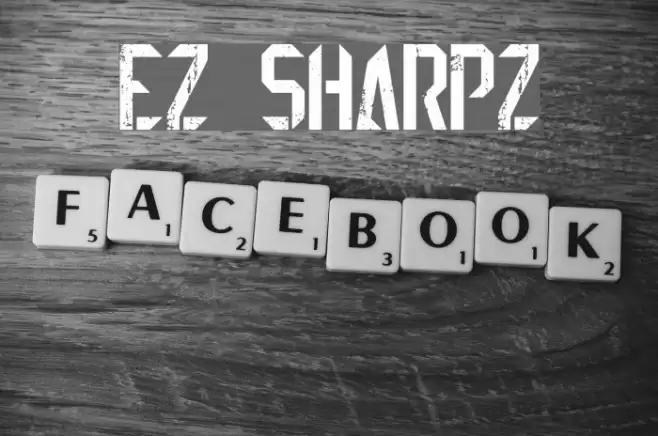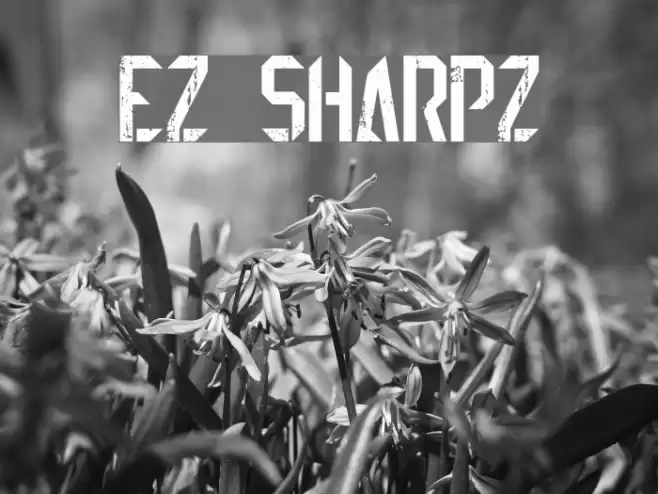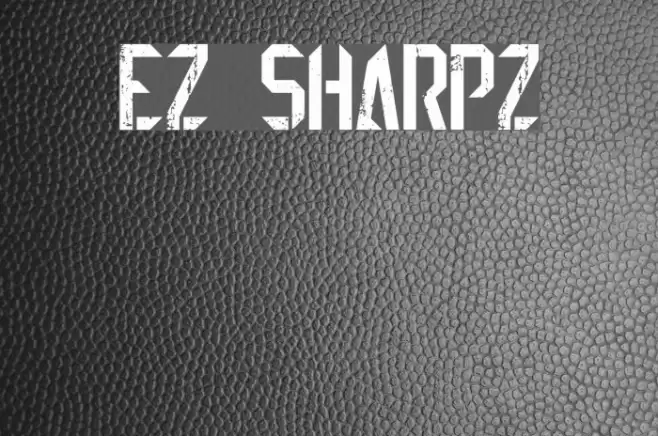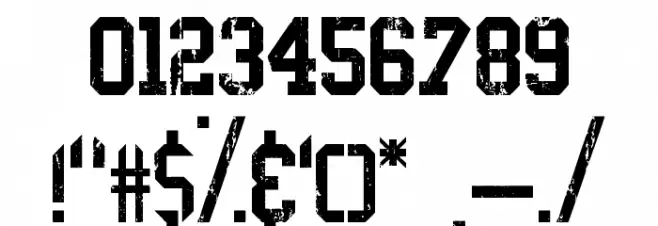
EZ Sharpz Font
EZ Sharpz Description
This font features a bold, distressed style with sharp, angular edges and a rugged texture. The characters are designed with a stencil-like appearance, giving them a gritty, industrial feel. The uppercase and lowercase letters maintain a consistent height, while the numbers and special characters complement the overall aesthetic. The font's unique design elements make it stand out, with a high level of detail in the distressed effects, adding a sense of depth and character. The sharp angles and bold strokes create a strong visual impact, making it suitable for attention-grabbing designs.
A bold, distressed font with sharp, angular edges and a rugged, industrial feel from Distorted Eroded fonts.
- Overall Style: Industrial, Grunge